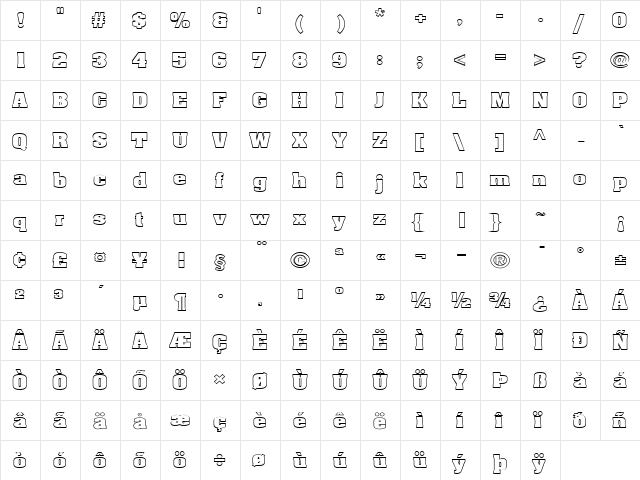
Heidelberg-Hollow-Extended Normal
Design Context for Heidelberg-Hollow-Extended Typeface
Heidelberg-Hollow-Extended is a composed and adaptable typeface that performs quietly and consistently across a wide range of design contexts.